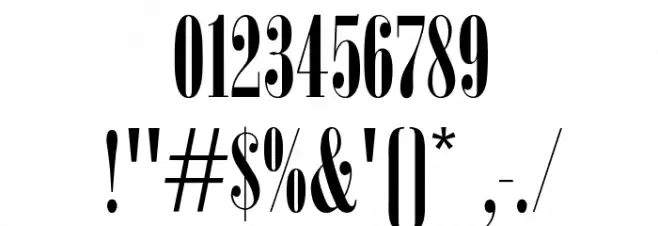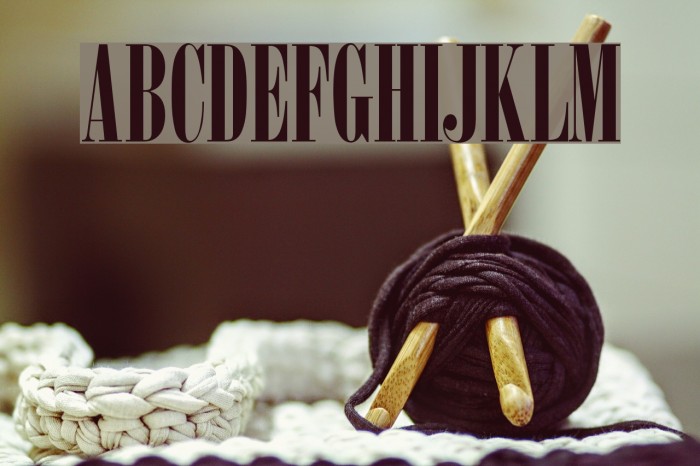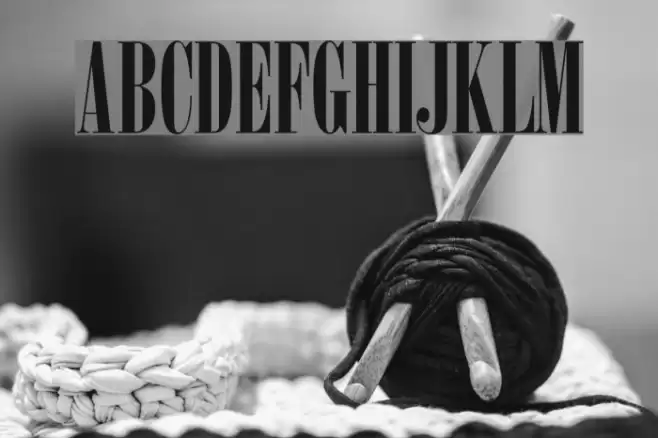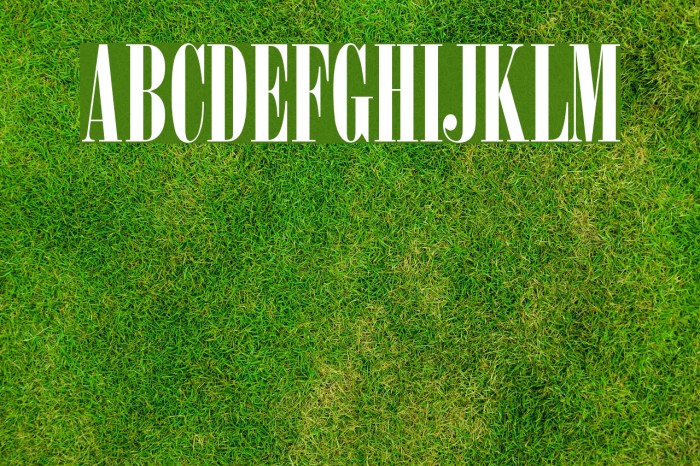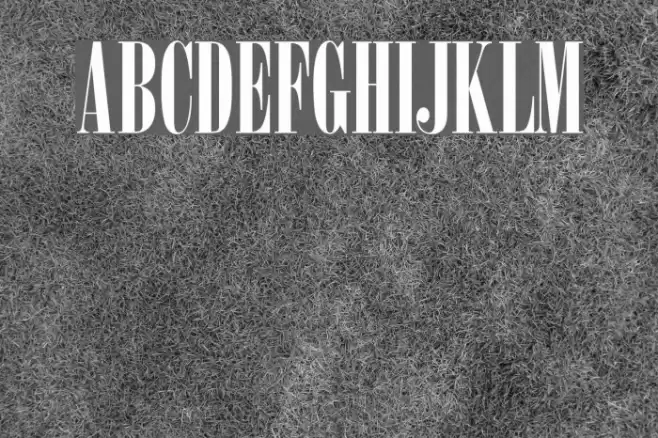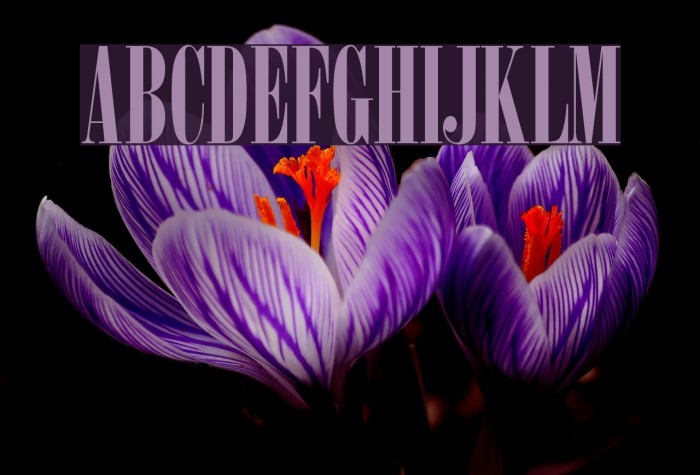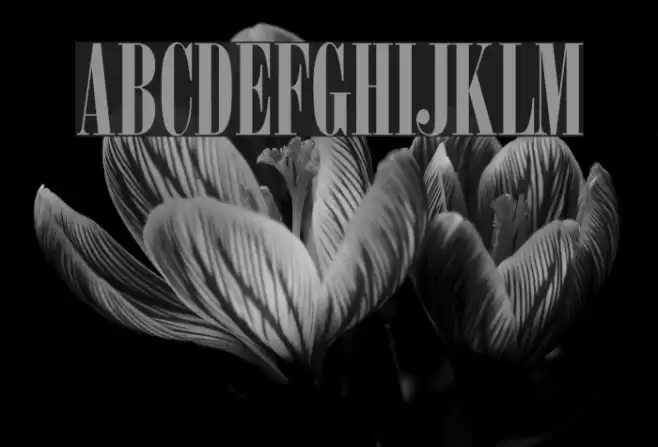
Arsis Font
Arsis Description
This font features a bold and striking design with high contrast between thick and thin strokes, giving it a dramatic and elegant appearance. The uppercase letters are tall and commanding, while the lowercase letters maintain a consistent style with a slightly more condensed form. The numerals are clear and distinct, matching the overall boldness of the font. Special characters are designed with the same attention to detail, ensuring they stand out while remaining cohesive with the rest of the typeface. This font's unique style makes it ideal for projects that require a strong visual impact.
| Proposed Projects | Ideal for headlines, posters, branding, and editorial design where a strong visual impact is needed. |